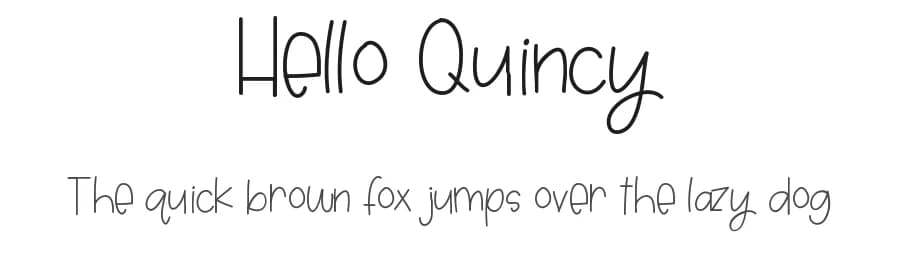
About Hello Quincy Font
Hello Quincy Font is a script font that shines as a display or heading face. Pair it with a clean sans-serif or serif font for body text β the contrast creates a clear hierarchy while the two styles stay balanced and easy to read.
Hello Quincy Font